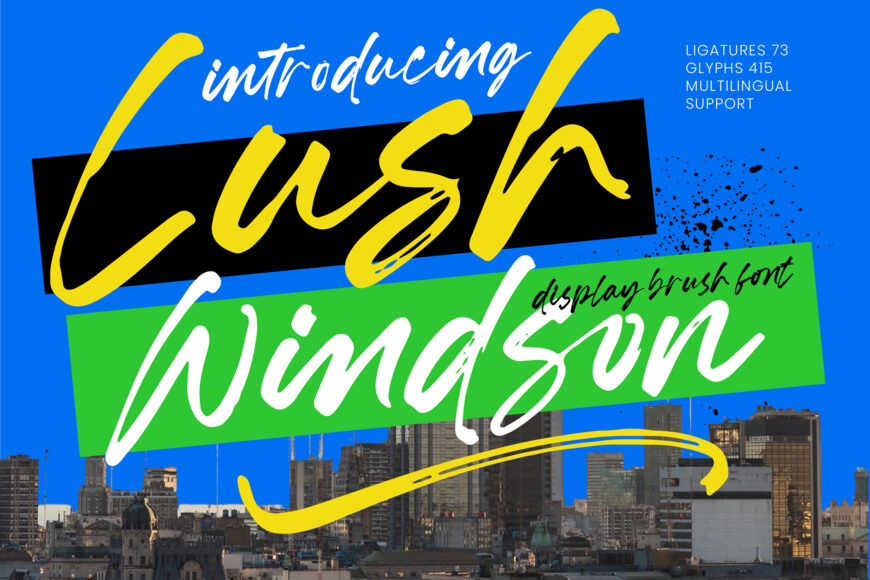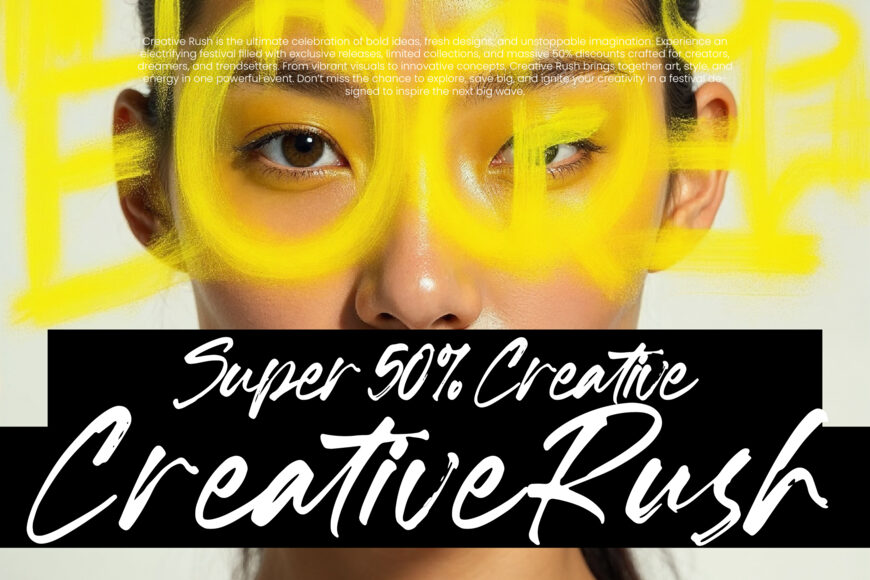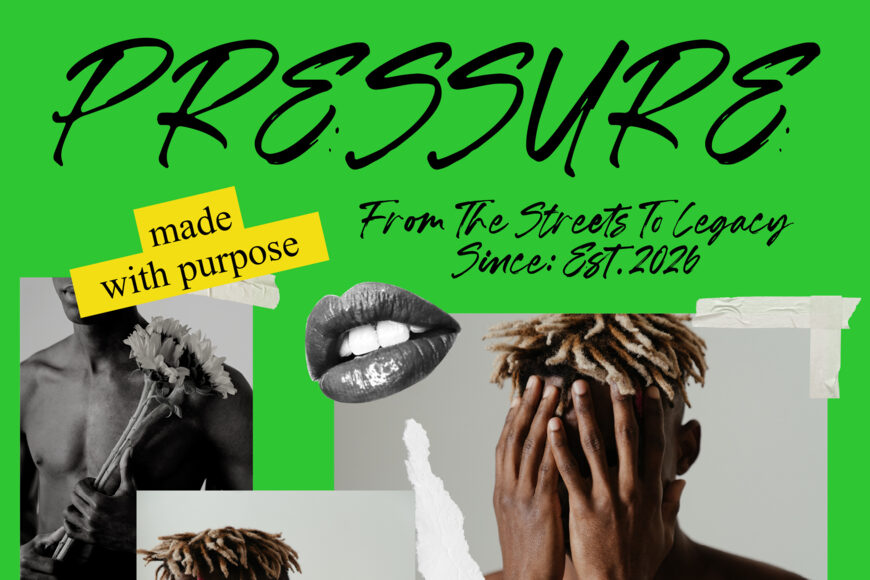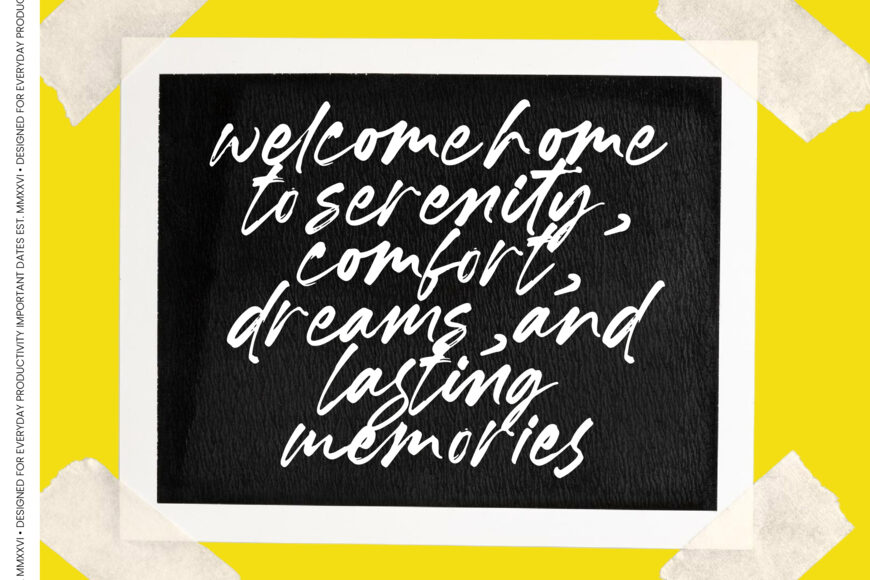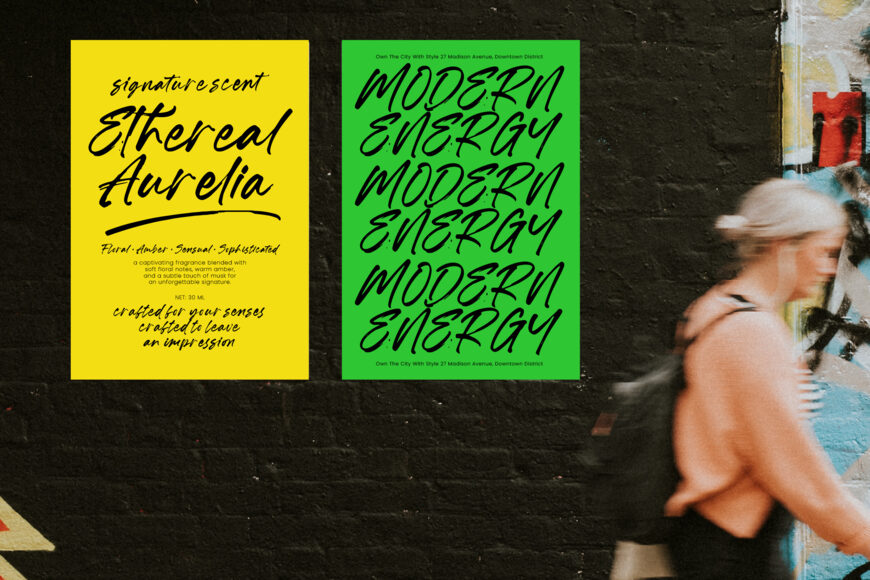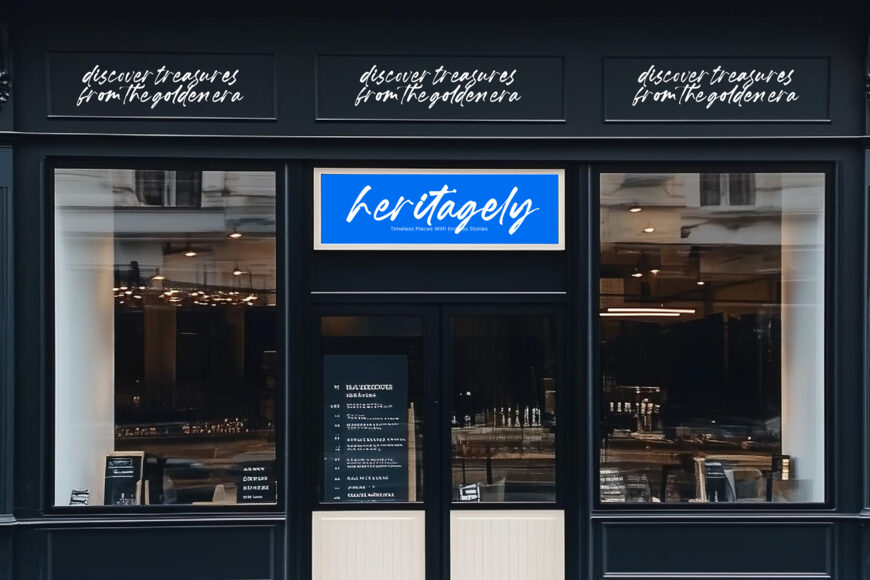
Unleash bold, handwritten energy with Lush Windson, an expressive display brush font inspired by urban movement and authentic texture. Its fluid strokes and organic rhythm bring instant impact to branding, packaging, apparel, social media, and editorial designs. Ideal for luxury identities, premium products, and street-style campaigns, Lush Windson adds originality and edge to every project.
With more than 415 glyphs and 73 custom ligatures, this versatile, professionally designed typeface delivers natural connections and polished results for standout creative work.